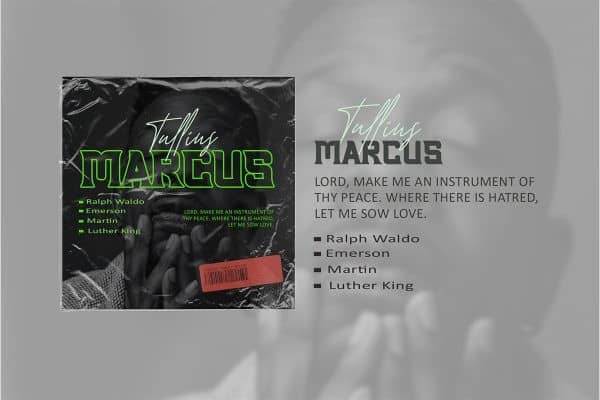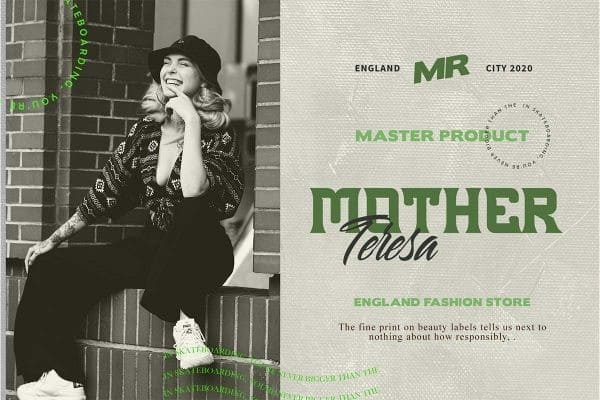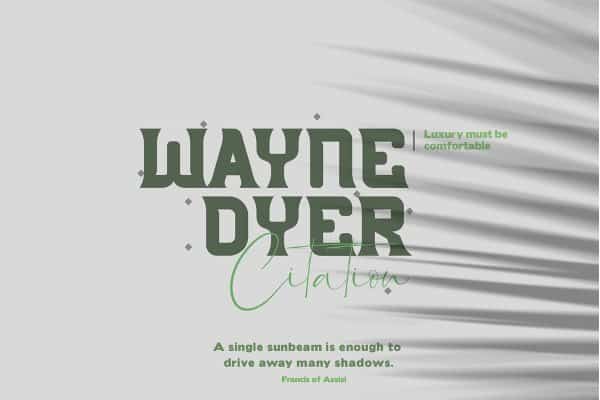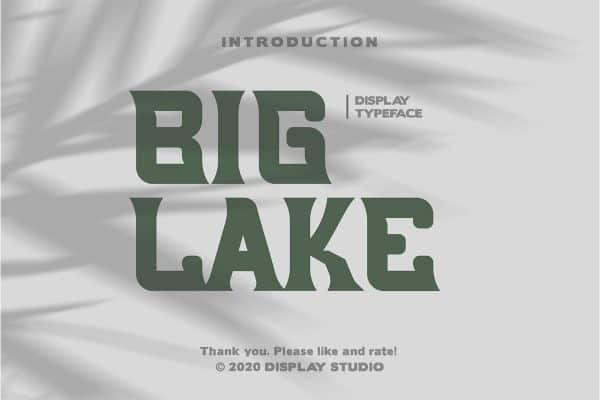
Introducing Big Lake Display Font is a vintage clean inspired font that’s originally handdrawn feels. It comes in two styles. Perfect fit and easy to make your amazing product. Suitable for label designs, logo designs, badge designs, t-shirt designs, posters, greeting cards, letterheads or anything that looks vintage style. Hope you guys enjoy it!
Big Lake
Big Lake Italic